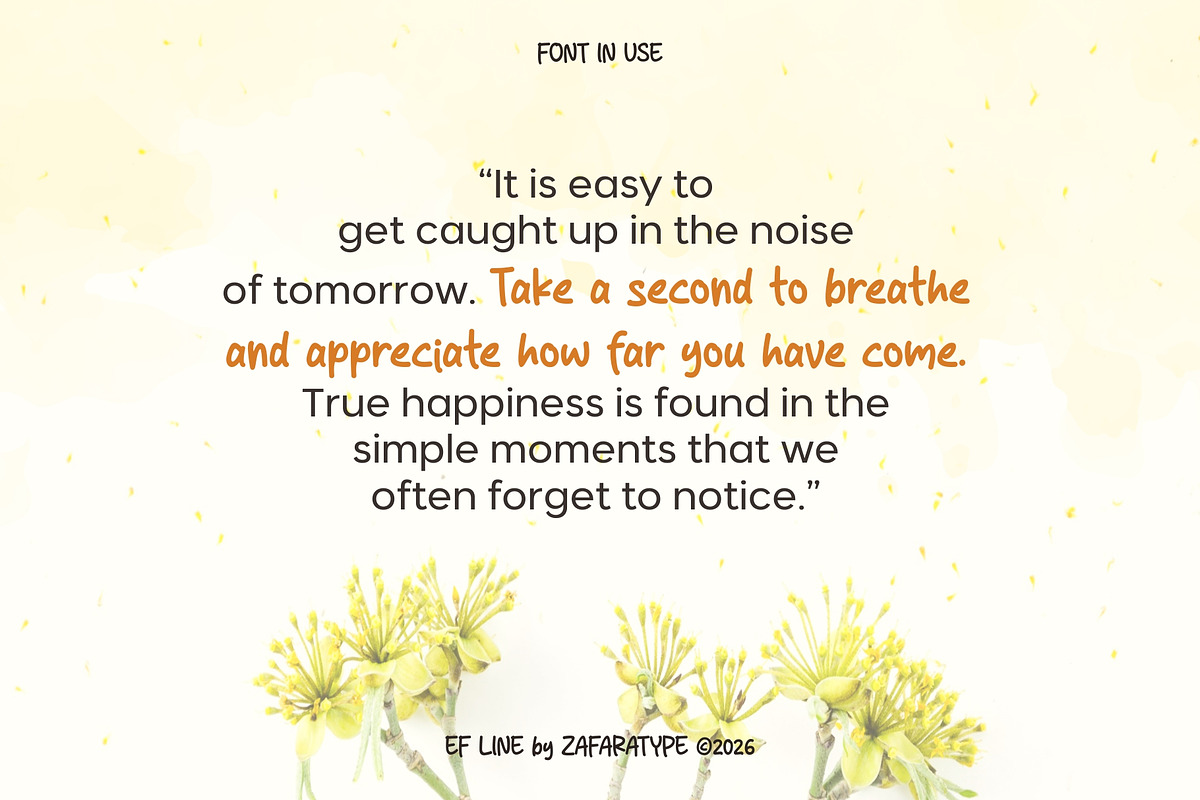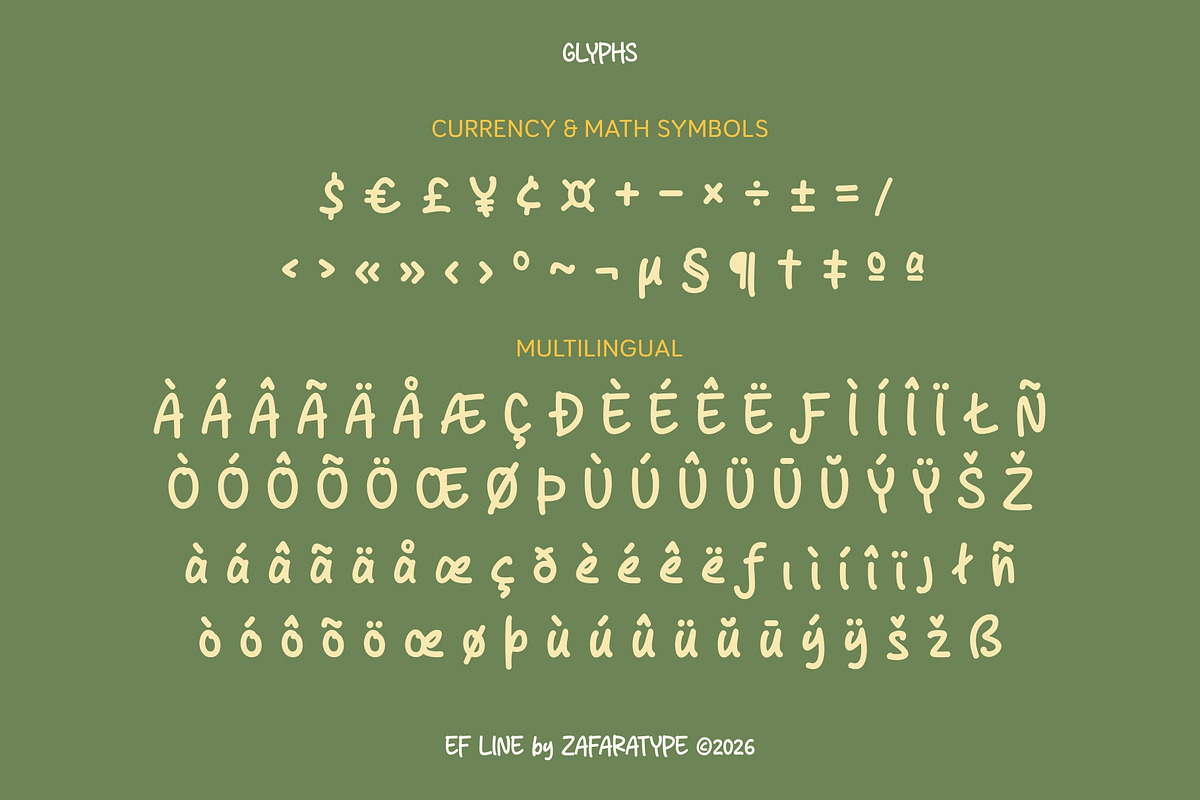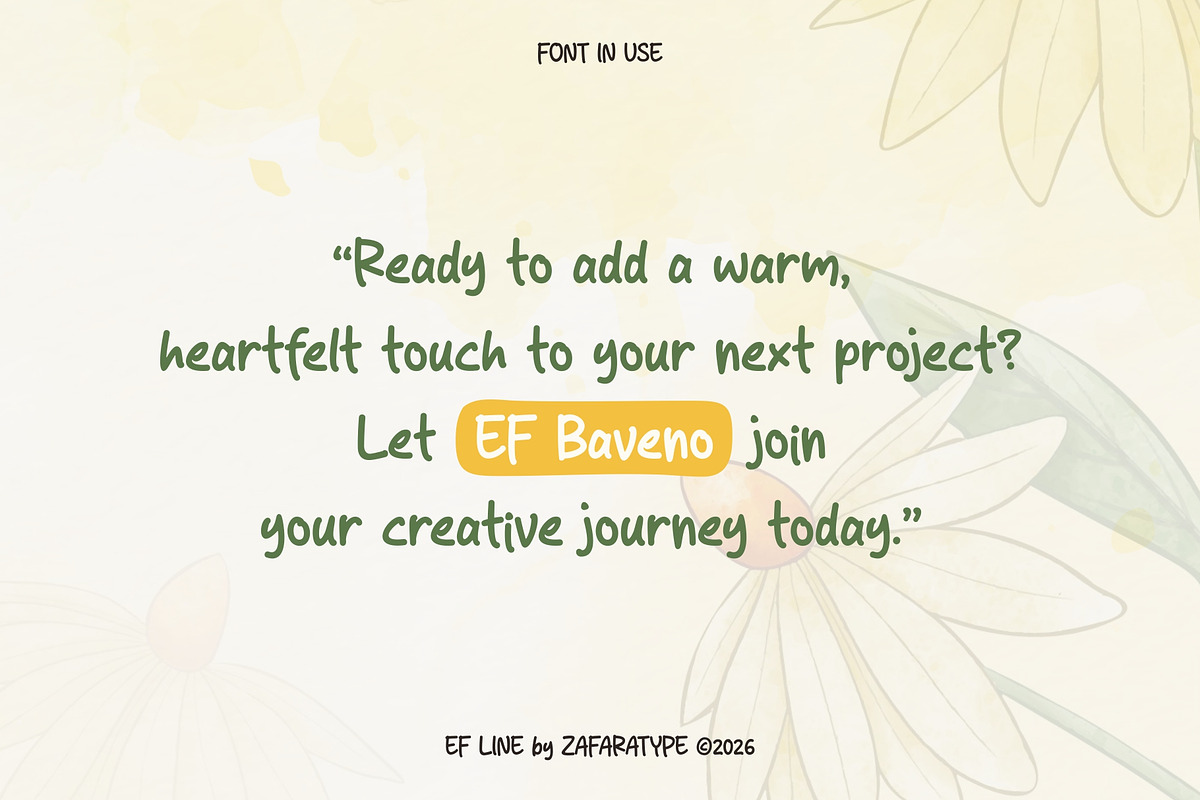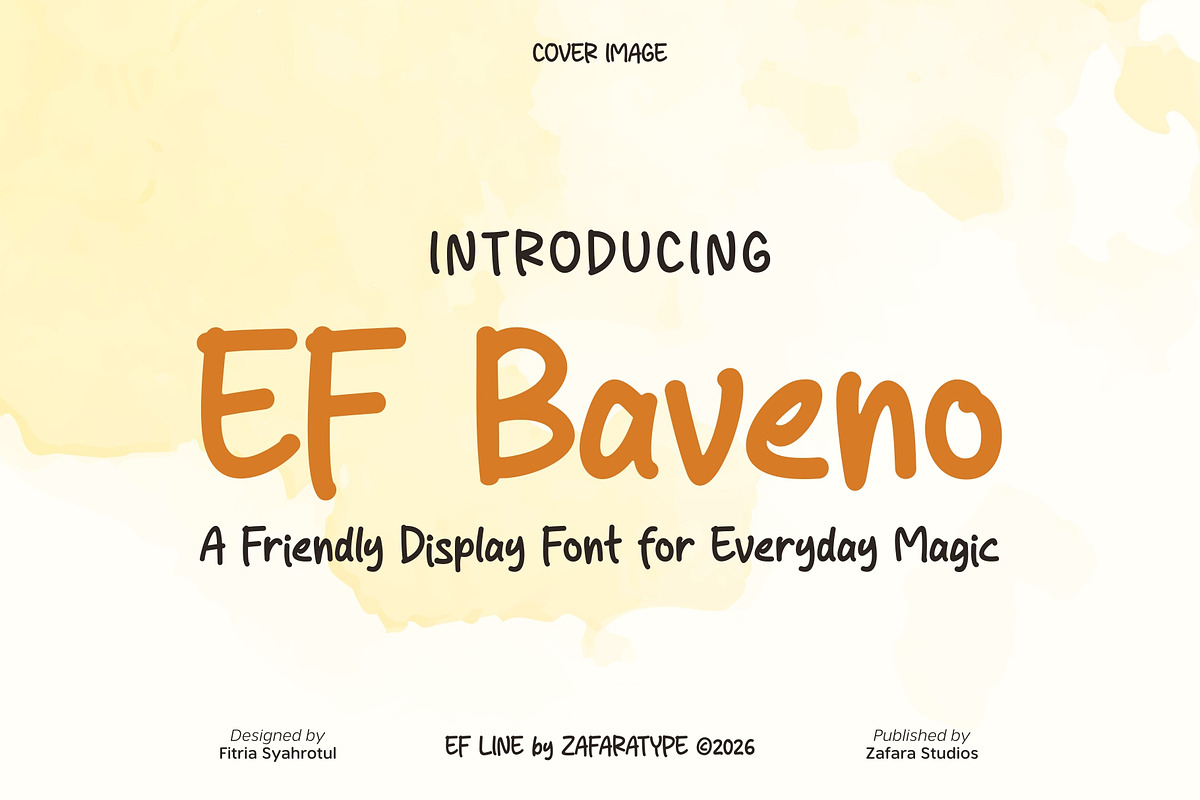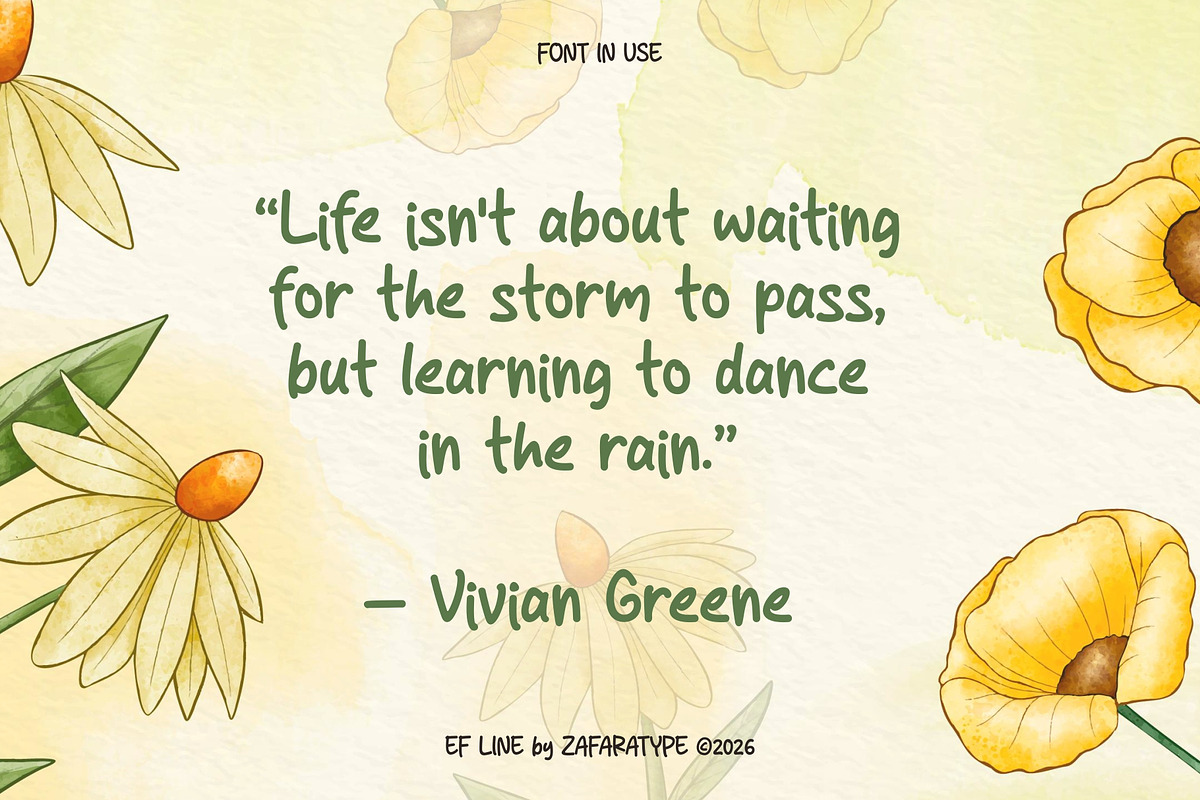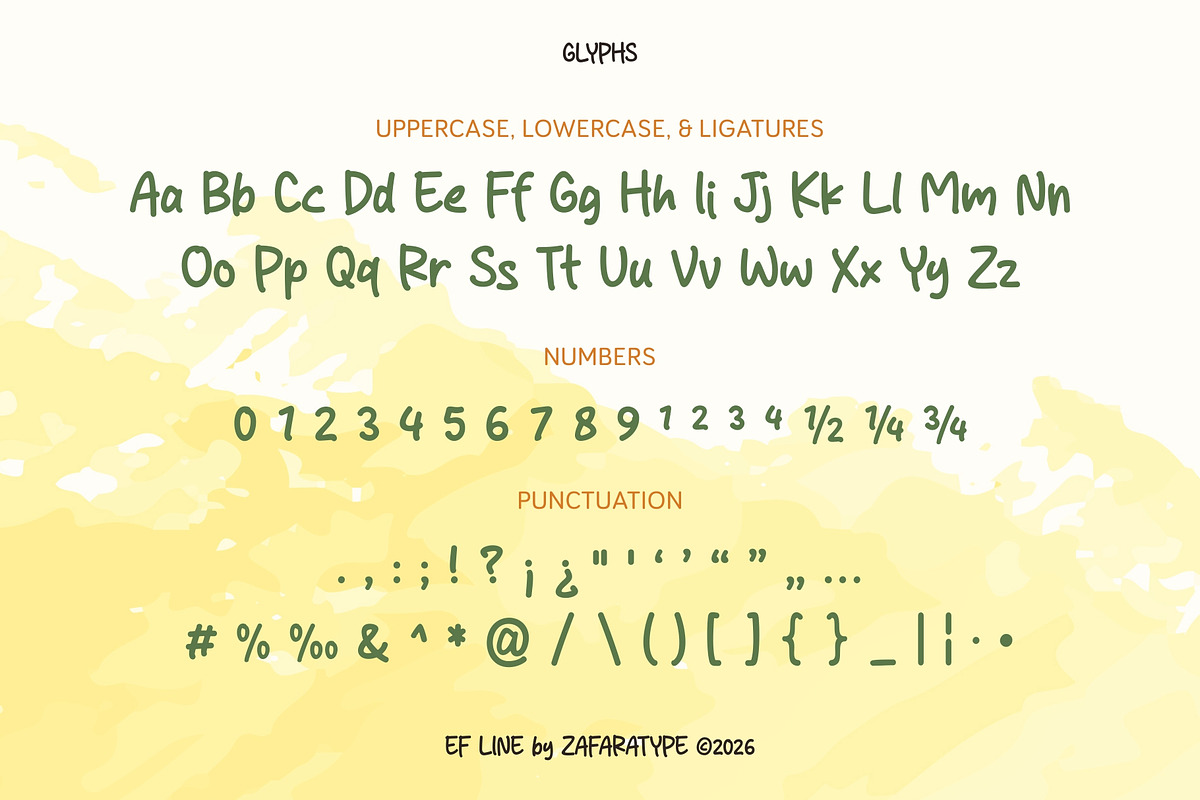
EF Baveno
EF Baveno is a playful and expressive display font that blends smooth, rounded strokes with a natural and friendly personality. Featuring soft curves, slightly irregular letterforms, and a bold handwritten feel, it brings a warm and cheerful touch to your designs while keeping every word casual, expressive, and full of character.
Designed to bring a little everyday magic into your typography, EF Baveno is perfect for branding, logos, packaging, posters, social media, greeting cards, quotes, apparel, stickers, merchandise, children’s designs, and other creative projects. Its relaxed and playful style makes every design feel warm, approachable, and effortlessly expressive.
243 glyphs: Uppercase, lowercase, ligatures, numbers & punctuation, symbols & accents, multilingual support
25 languages: Afrikaans, Albanian, Basque, Catalan, Danish, Dutch, English, Estonian, Faroese, Filipino, Finnish, French, Galician, German, Icelandic, Indonesian, Irish, Italian, Malay, Norwegian Bokmål, Portuguese, Spanish, Swahili, Swedish, Zulu